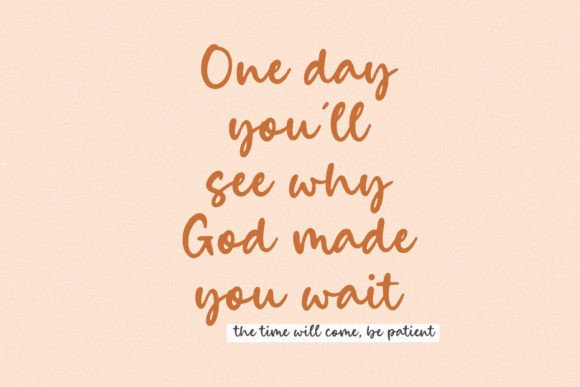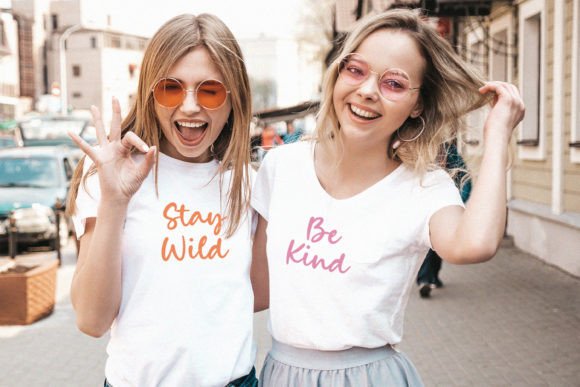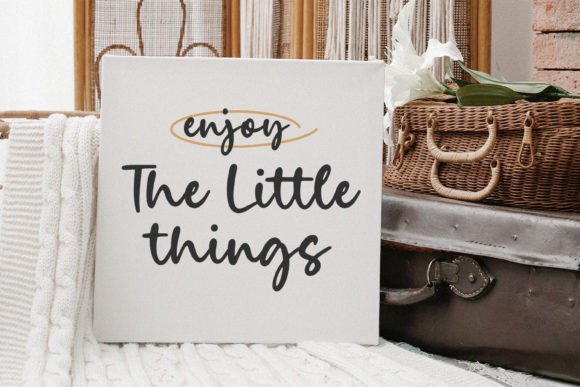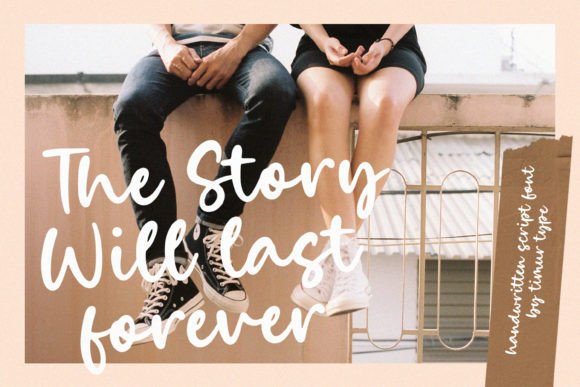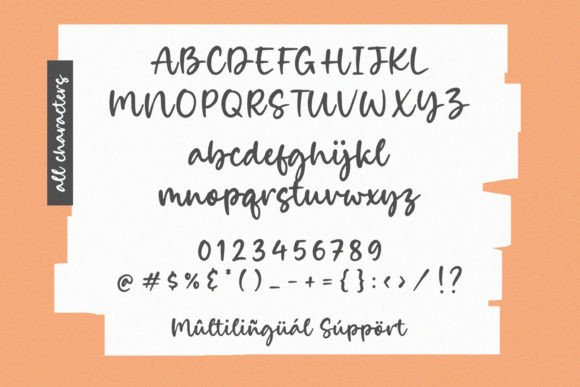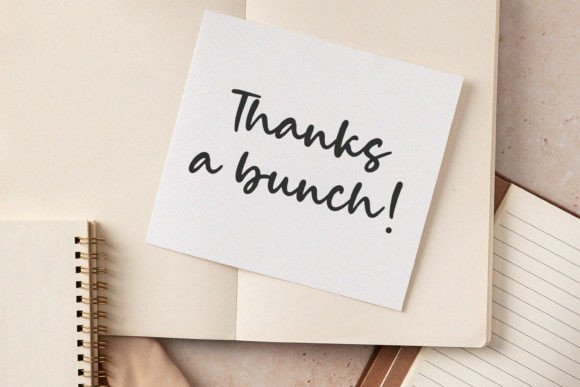
Candies Font: The Sweetest Addition to Your Design Toolbox
Are you on the hunt for a font that’s as sweet as it is versatile? Look no further than Candies, a fresh and playful handwritten font that’s perfect for adding a touch of whimsy to your designs. With its casual charm and effortless vibe, Candies is the ideal choice for crafty ideas, DIY projects, and creative endeavors of all kinds.
Handwritten fonts have a way of adding a personal touch to any design. They’re often associated with feelings of warmth, friendliness, and approachability, making them perfect for brands and projects that want to convey a sense of personality. Candies is no exception, with its loose, handwritten strokes and carefree charm that’s sure to capture the hearts of designers and crafters alike.
What Makes Candies So Special?
So, what sets Candies apart from other handwritten fonts on the market? For starters, its unique blend of playfulness and sophistication makes it incredibly versatile. Whether you’re designing a logo, creating a social media graphic, or crafting a handmade project, Candies is the perfect choice. Its casual charm is also perfect for a wide spectrum of crafty ideas, from DIY tutorials and crafting blogs to handmade products and creative workshops.
Perfect for Crafty Ideas
Candies is more than just a font – it’s a creative partner that’s designed to help you bring your crafty ideas to life. Whether you’re a seasoned crafter or just starting out, Candies provides the perfect combination of style and substance to make your projects shine. Here are just a few ways you can use Candies to take your crafty ideas to the next level:
- DIY Tutorials: Use Candies to create eye-catching headings and titles for your DIY tutorials, adding a touch of personality to your instructions and making them more engaging for your readers.
- Crafting Blogs: Add a dash of whimsy to your crafting blog with Candies, using it to create headings, titles, and even social media graphics that showcase your handmade projects.
- Handmade Products: Use Candies to create labels, packaging, and marketing materials for your handmade products, adding a touch of personality and charm to your brand.
Why Designers Love Candies
Designers love Candies for its unique combination of style, versatility, and ease of use. Here are just a few reasons why Candies is a must-have font for any designer:
- Easy to Read: Candies is incredibly easy to read, even at small sizes, making it perfect for body text, headings, and titles.
- Highly Versatile: Candies can be used for a wide range of design projects, from logos and branding to social media graphics and print materials.
- Unique Style: Candies has a unique style that’s both playful and sophisticated, making it perfect for designers who want to add a touch of personality to their designs.
Candies is a fresh and playful handwritten font that’s perfect for adding a touch of whimsy to your designs. With its casual charm and effortless vibe, Candies is the ideal choice for crafty ideas, DIY projects, and creative endeavors of all kinds. Whether you’re a designer, crafter, or simply someone who loves to get creative, Candies is the perfect addition to your design toolbox.